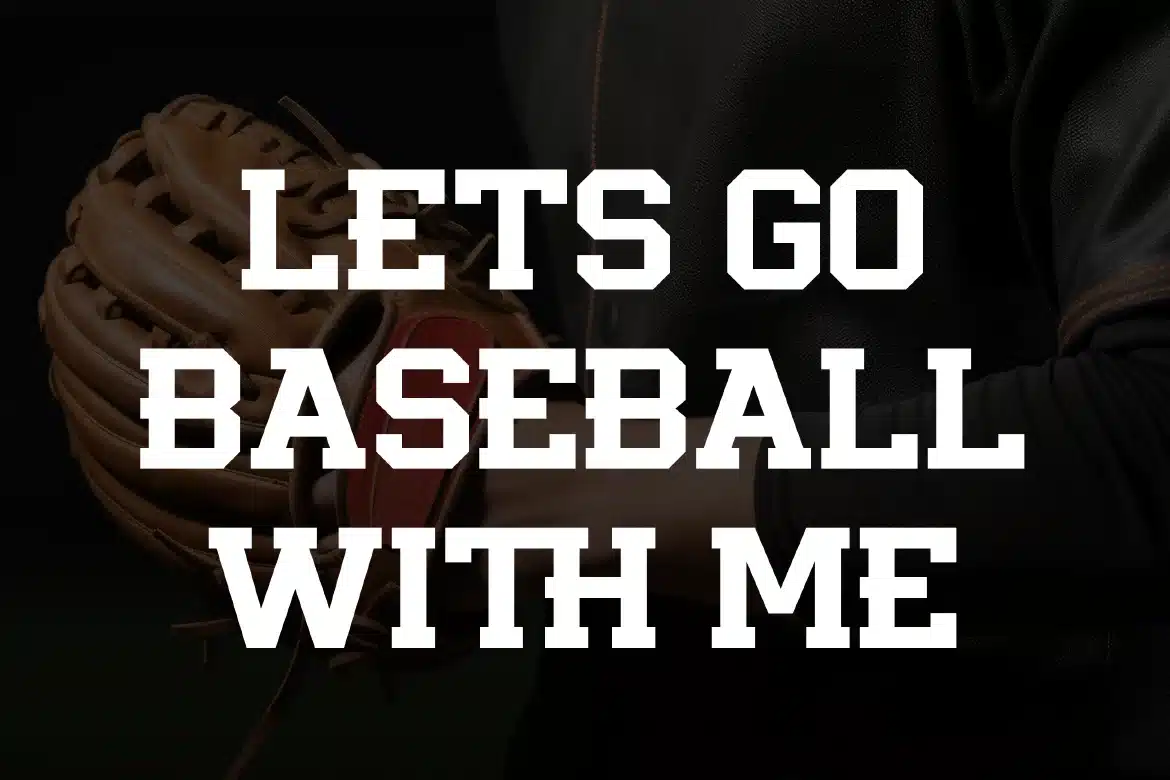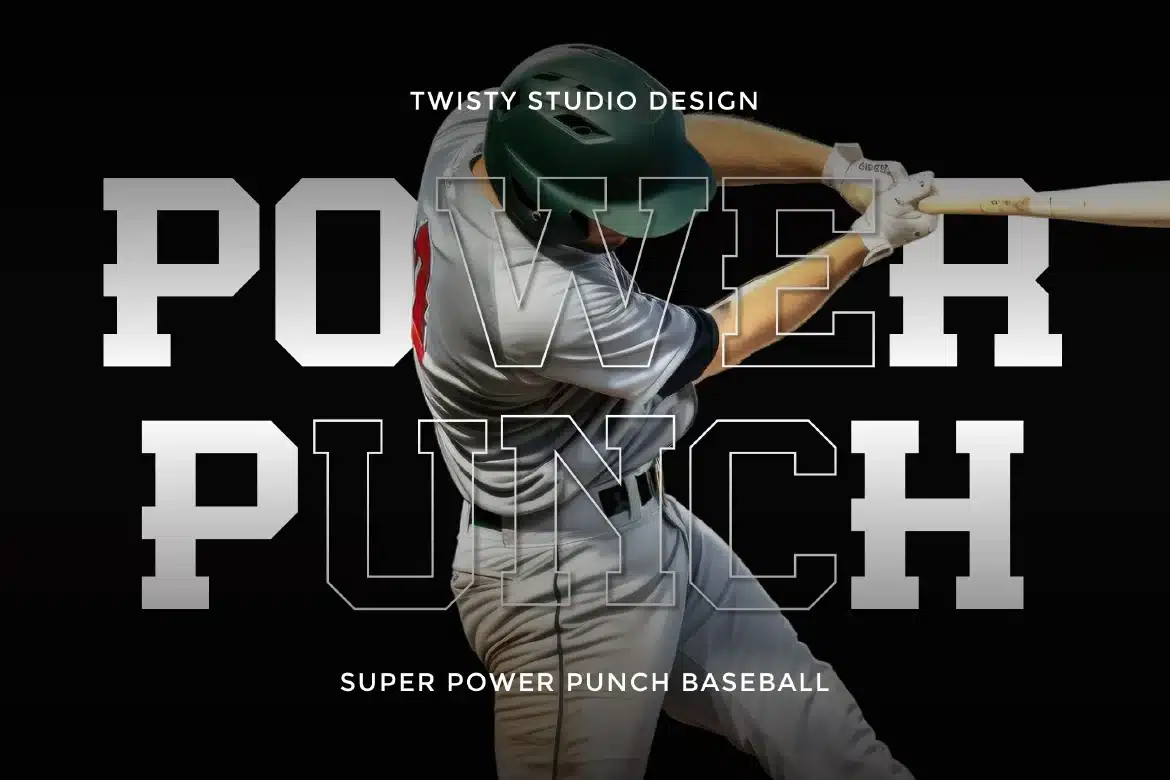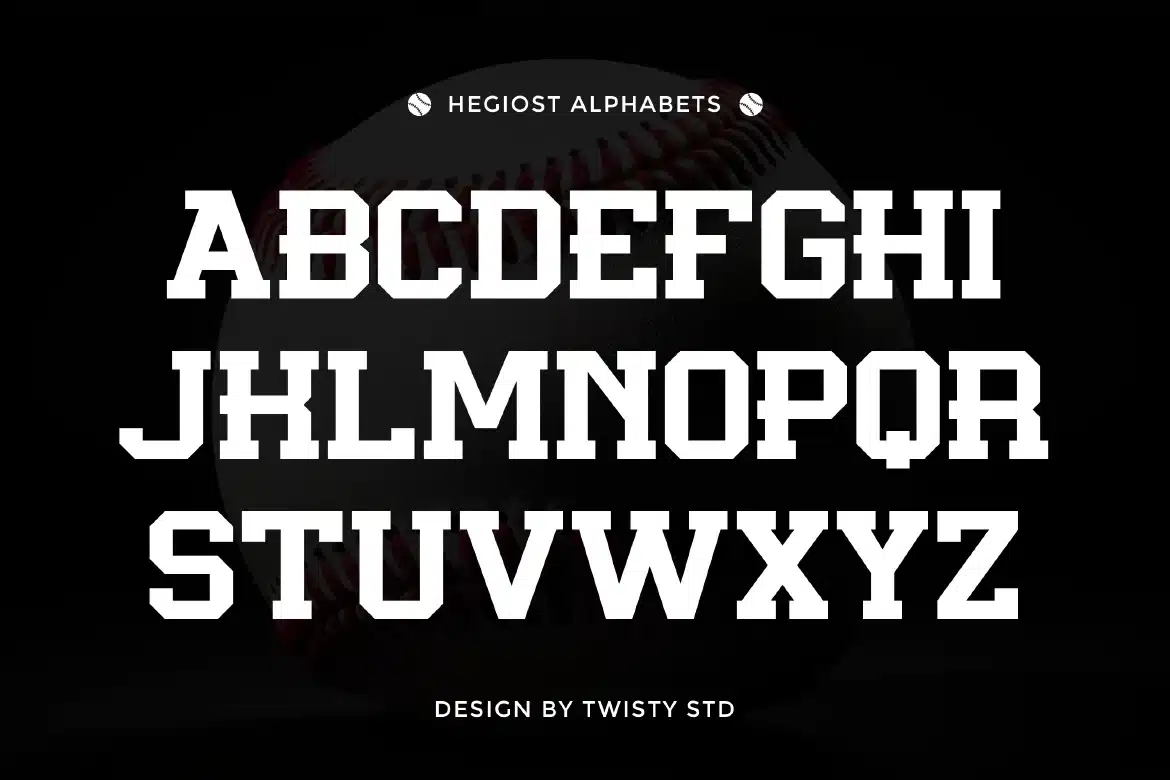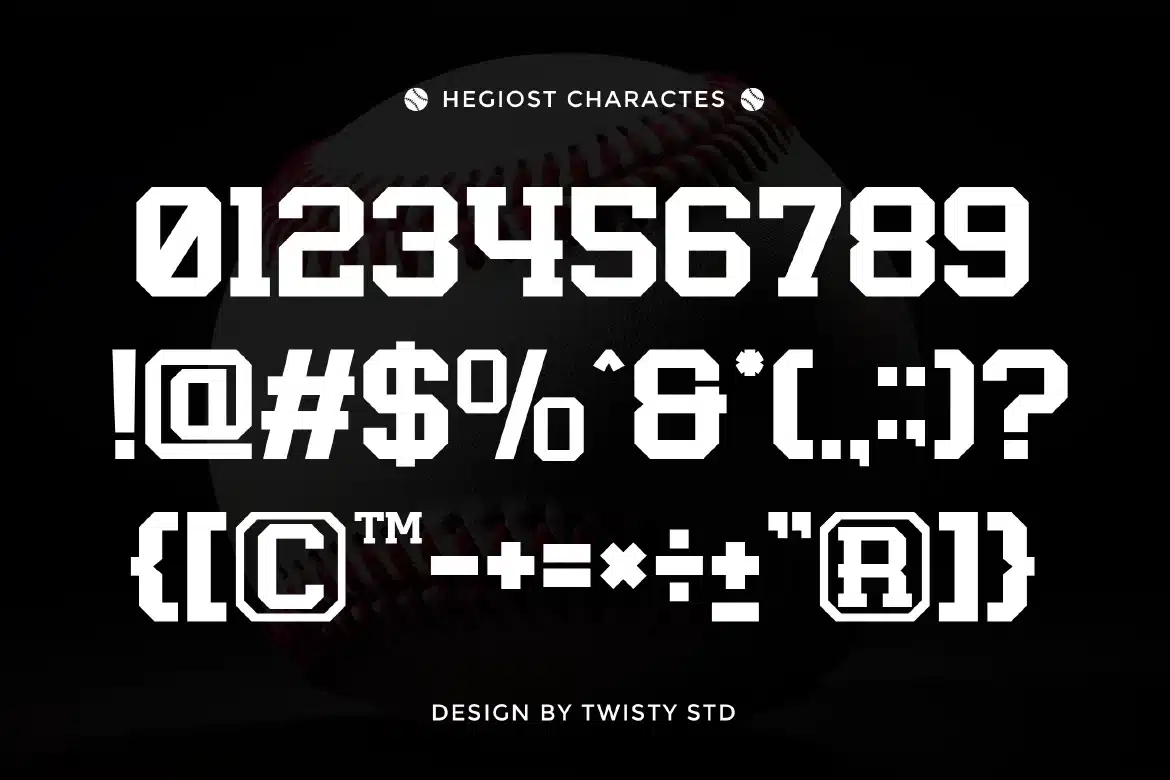
Modern Sport Display – Hegiost Font
Modern Sport Display Font - Hegiost
Hegiost is a modern sport display font built to deliver speed, strength, and a bold athletic attitude. Featuring sharp cuts, solid forms, and dynamic proportions, Hegiost creates a striking visual rhythm that feels powerful and full of motion. Its design emphasizes impact and clarity, making it highly effective for headlines and large-scale typography. The combination of clean construction and sporty detailing allows Hegiost to stand out while remaining structured and easy to read.
Who Should Use Hegiost?
Hegiost is ideal for designers, brands, and creatives looking for a modern sport typeface with a bold and dynamic personality. It’s especially suited for projects that require high-impact and action-driven typography.
Sports and team branding
Esports and gaming visuals
Fitness and active lifestyle design
Posters and promotional materials
Advertising and campaigns
Social media graphics
Bold headline typography